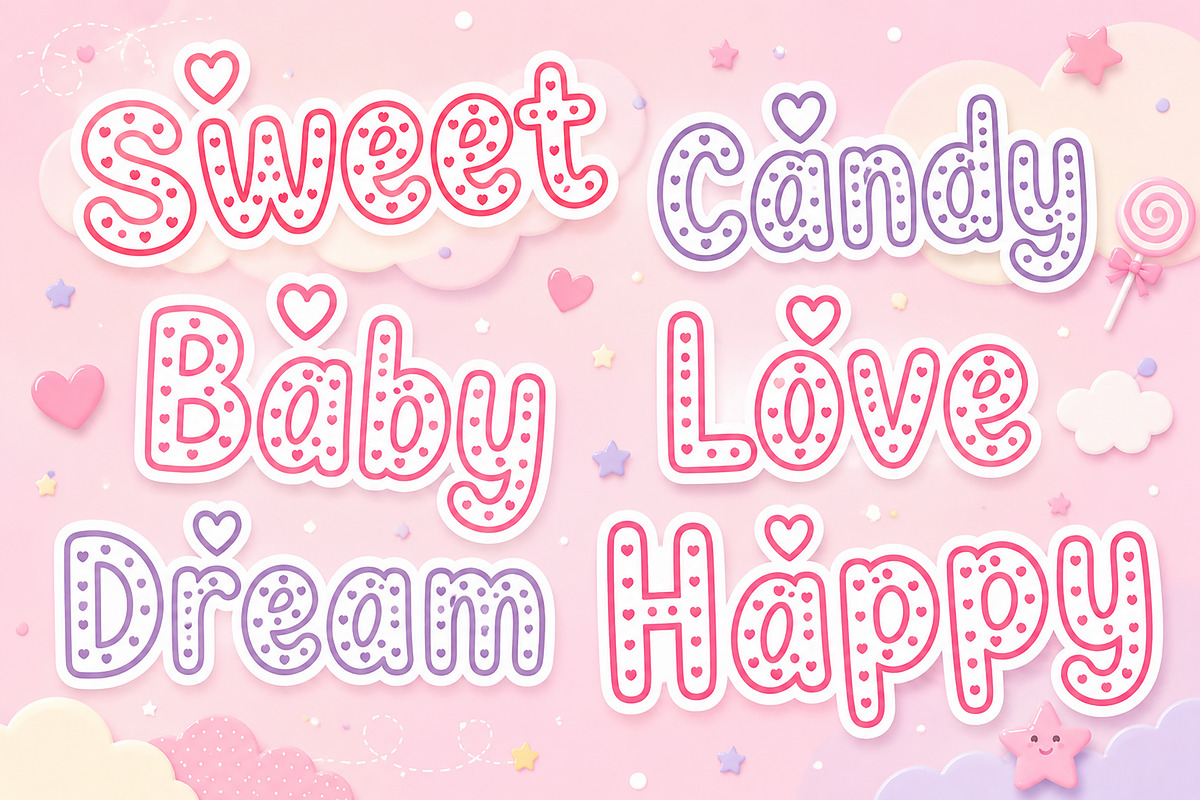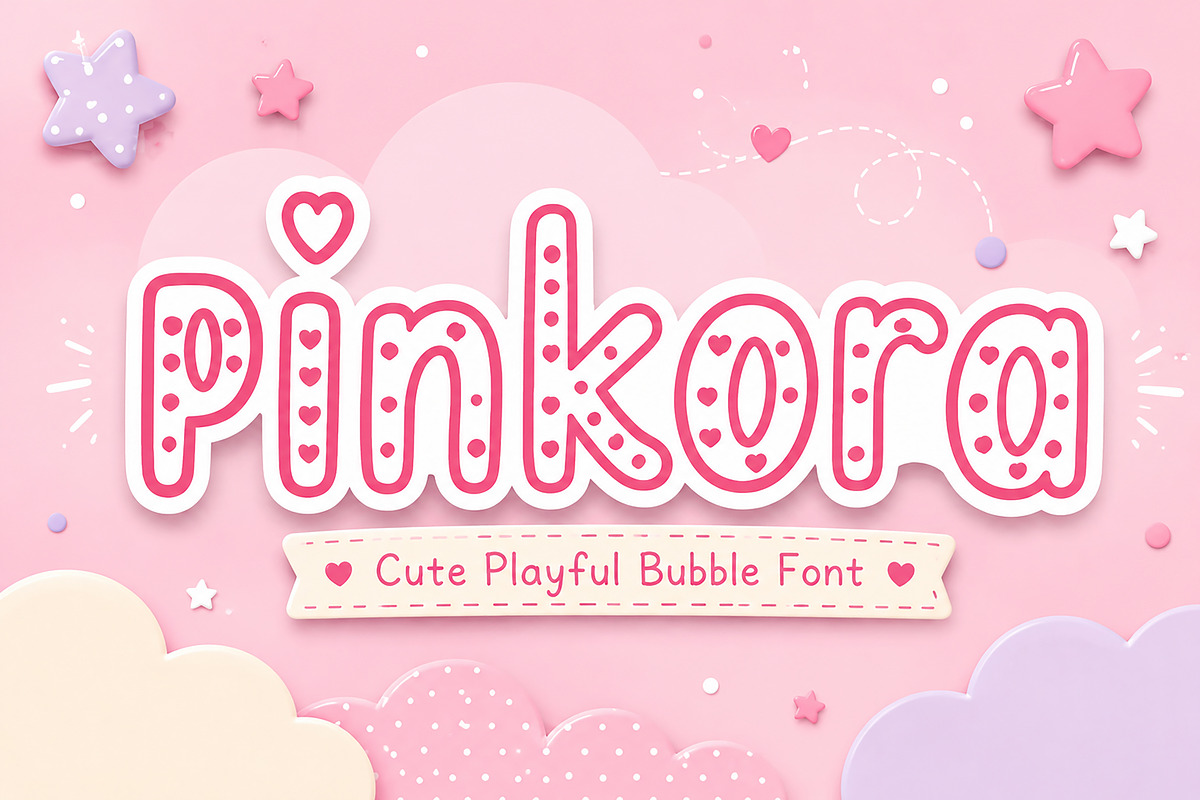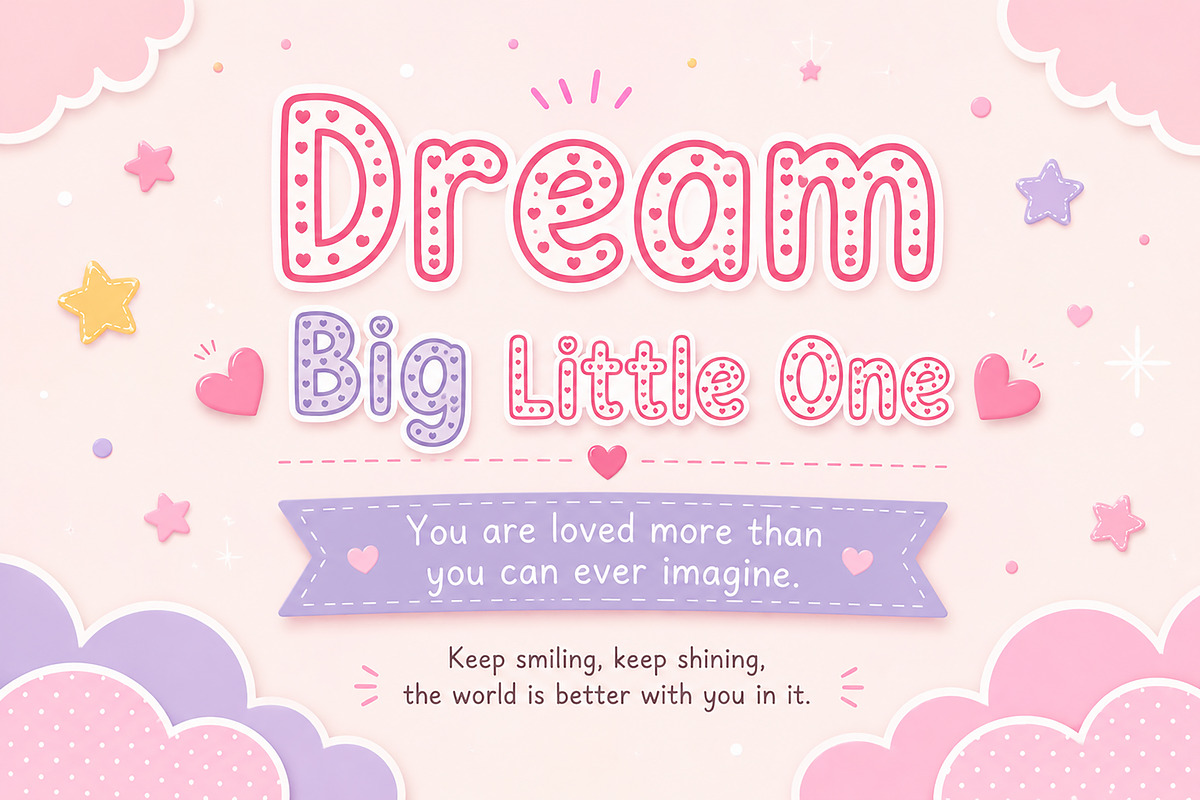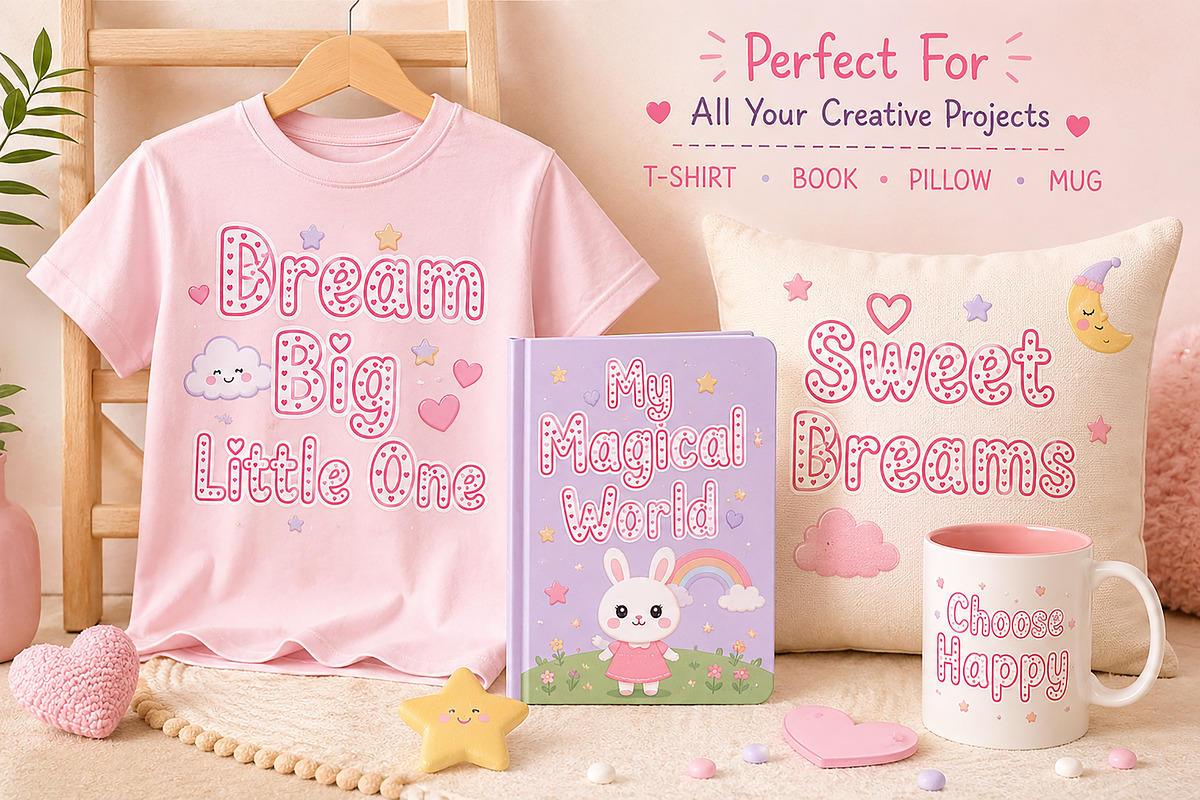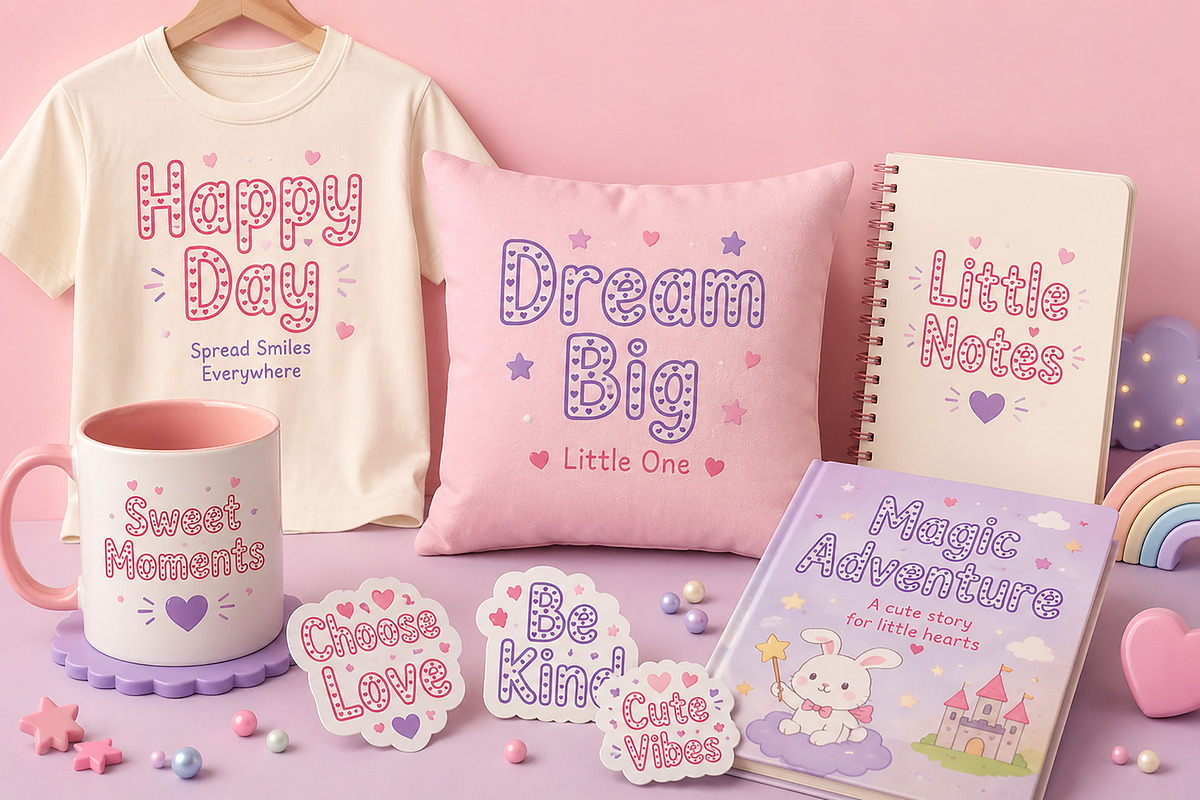
Pinkora
Pinkora is a cute and playful bubble font designed to bring joy, sweetness, and charm to your creative projects. With its rounded shapes, dotted details, and handmade feel, Pinkora delivers a fun, cheerful, and childlike aesthetic perfect for creating standout designs.
This font is ideal for kids branding, baby products, nursery decor, candy packaging, greeting cards, storybooks, playful logos, stickers, social media posts, and more.
Its soft and friendly style makes every word feel warm, adorable, and full of personality.
Kids Projects
Baby Shower Invitations
Nursery Designs
Children’s Books
T-shirt Designs
Mug Designs
Pillow Designs
Stickers
Branding
Logos
Packaging
Craft Projects
Bring your designs to life with the playful charm of Pinkora.